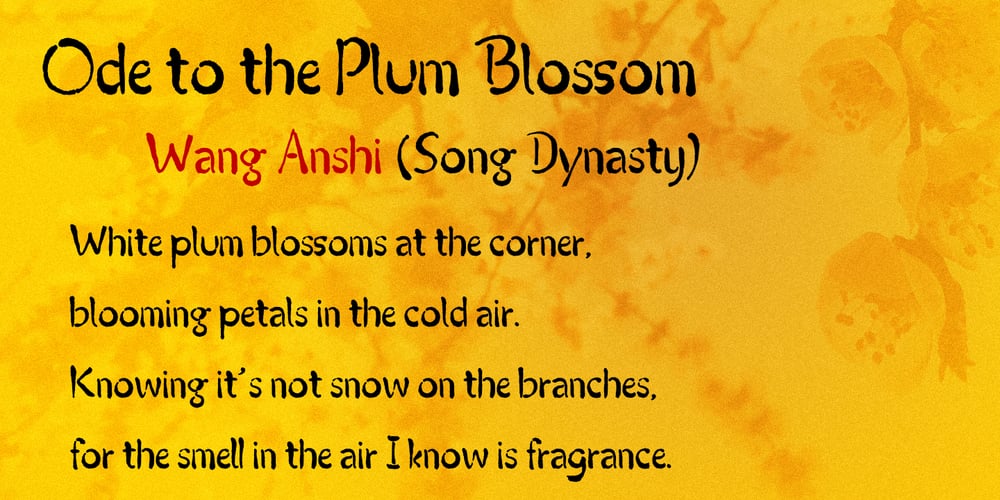
Lianhua Font Family was designed by Quan-gang Li and published by Quatype. Lianhua contains 1 styles and family package options. Lianhua is a handwritten font with a soft touch, given by a Chinese ink brush. There are lots of Chinese western fonts having a strong, sharp visual feeling, like the strokes of Chinese characters, so I decide to do the opposite: soft. Because except for Yang, there is also Yin in Chinese culture. The name ‘Lianhua’ means lotus in Chinese. This font is flexible and widely-used, it’s suited for book titles, posters, brochures, flyers, even for menus of a Chinese restaurant. The total glyphs in this font is 351, including basic Latin letters and symbols, Latin-Expand A, 10 ligatures and 2 alternate letters, which are the letter g and letter y.